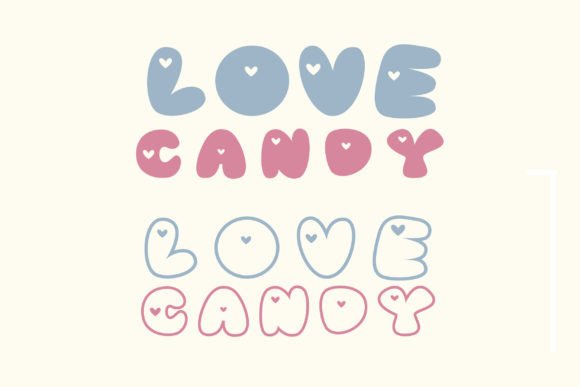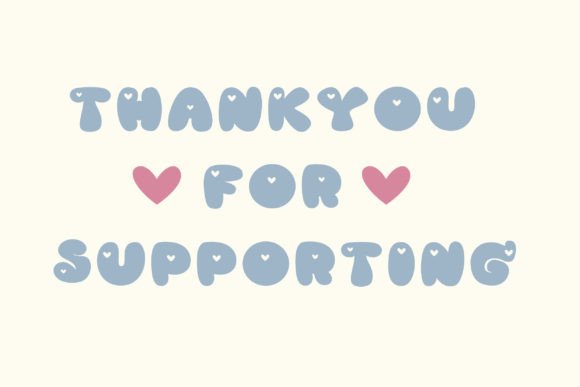
Introduction to Love Candy Font Font
Fonts play a crucial role in design, and the Love Candy Font font is a typeface that brings both character and versatility to any project. Whether you’re working on a branding project, a website, or a print design, the Love Candy Font font offers a unique style that can elevate your work.
Love Candy is a cute and playful decorative font that comes in 2 styles Regular and Hollow.
That fits your project typography stand out with this beautiful font that has the potential to elevate any creation It is perfect for invitations, greeting cards, advertising materials, DIY gifts, fabric prints, eye-catching social media posts, and more.
Key Features of Love Candy Font Font
Why Choose Love Candy Font Font?
The Love Candy Font font is more than just a typeface – it’s a design tool that helps you communicate your message with style and clarity. Its unique character set and versatile design make it suitable for a wide range of applications, from elegant invitations to bold headlines.
With its carefully crafted letterforms and balanced proportions, the Love Candy Font font ensures readability and visual appeal across all mediums.
What makes Love Candy Font font special?
The Love Candy Font font stands out with its unique design, exceptional readability, and versatility across various design applications.